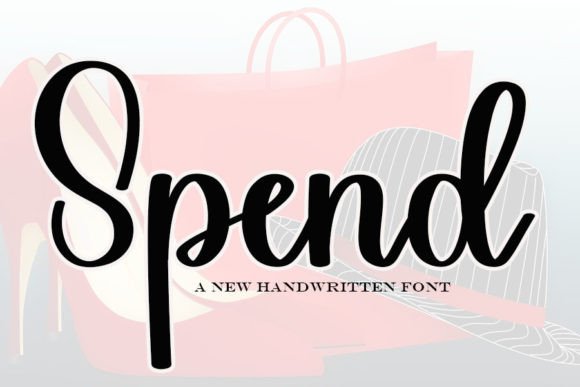
Journey into the world of calligraphy with Spend Font, a script font that exudes elegance and charm. Designed by the talented putrasyahreza00, Spend Font is not just a collection of letters; it's an art form, a symphony of strokes that dances across your screen. With its flowing lines and delicate curves, Spend Font captures the essence of handwritten beauty, inviting you to add a touch of sophistication to your creative projects.
Get lost in the intricate details of Spend Font, where each letter is a masterpiece. Admire the graceful ascenders and descenders, the subtle variations in thickness, and the organic feel that brings your words to life. Spend Font isn't just a font; it's an experience, a journey into the world of timeless elegance.
Indulge in the versatility of Spend Font, a font that adapts seamlessly to your creative vision. Whether you're crafting wedding invitations, designing logos, creating social media posts, or simply adding a personal touch to your documents, Spend Font is your perfect companion. Its timeless beauty transcends trends, ensuring that your designs remain captivating and effortlessly stylish.
Step into a world of creativity with Spend Font, a font that ignites your imagination. Let your words flow effortlessly onto the page, guided by the elegant curves and flourishes of this exceptional font. Experience the joy of creating designs that are both visually stunning and emotionally resonant. With Spend Font, your words will not just be read; they'll be cherished.